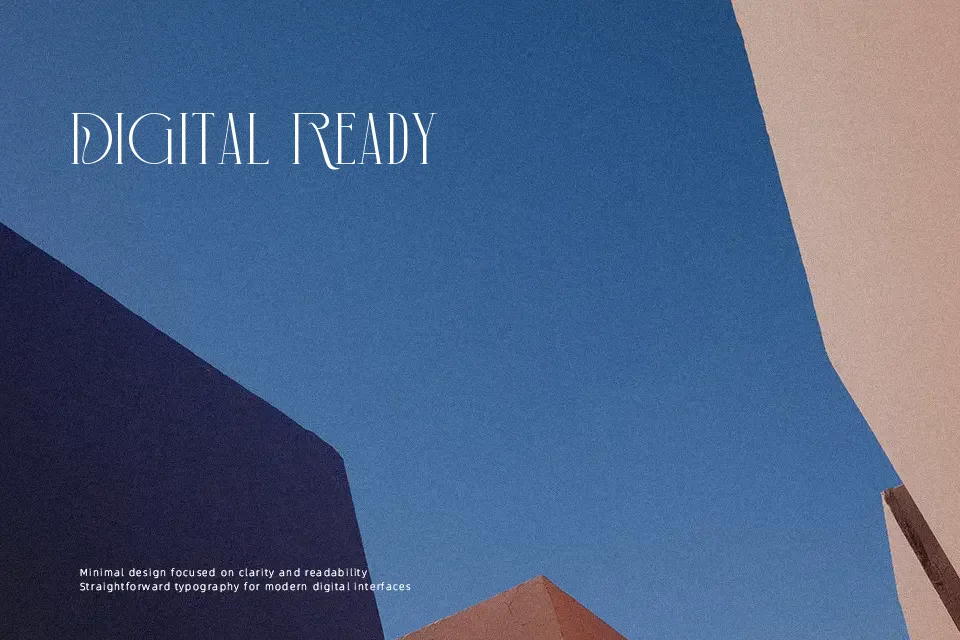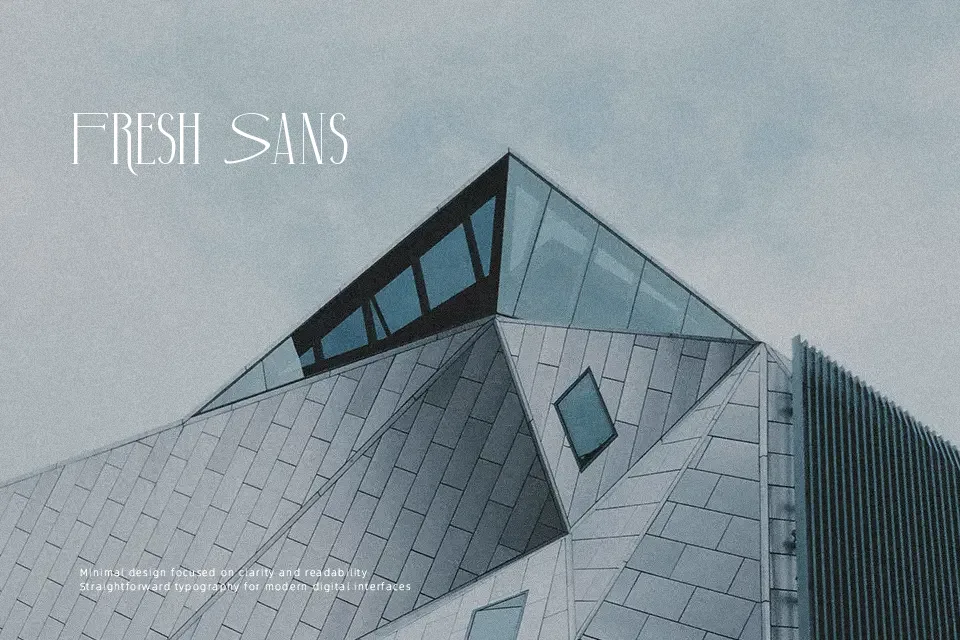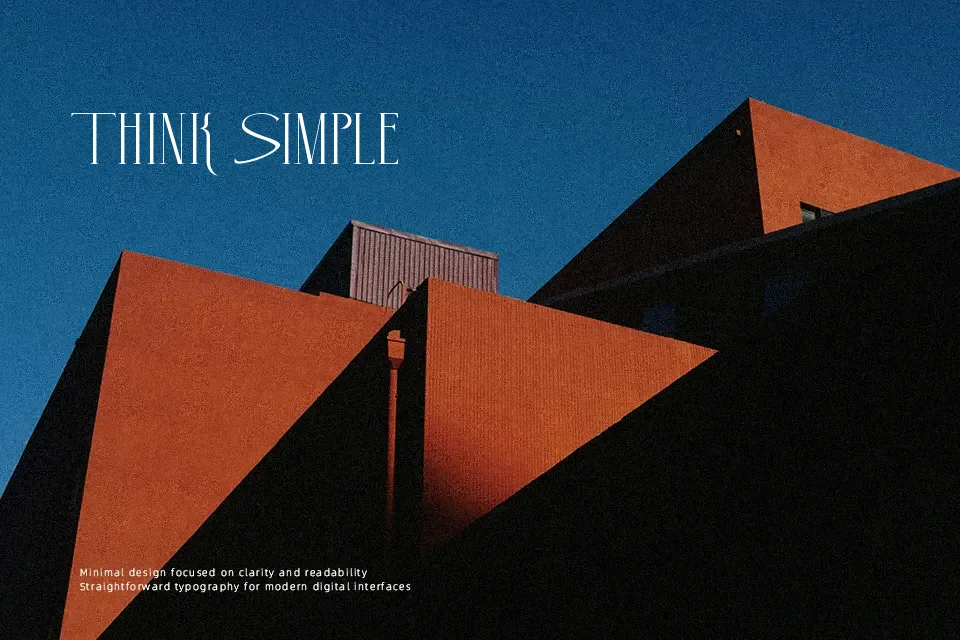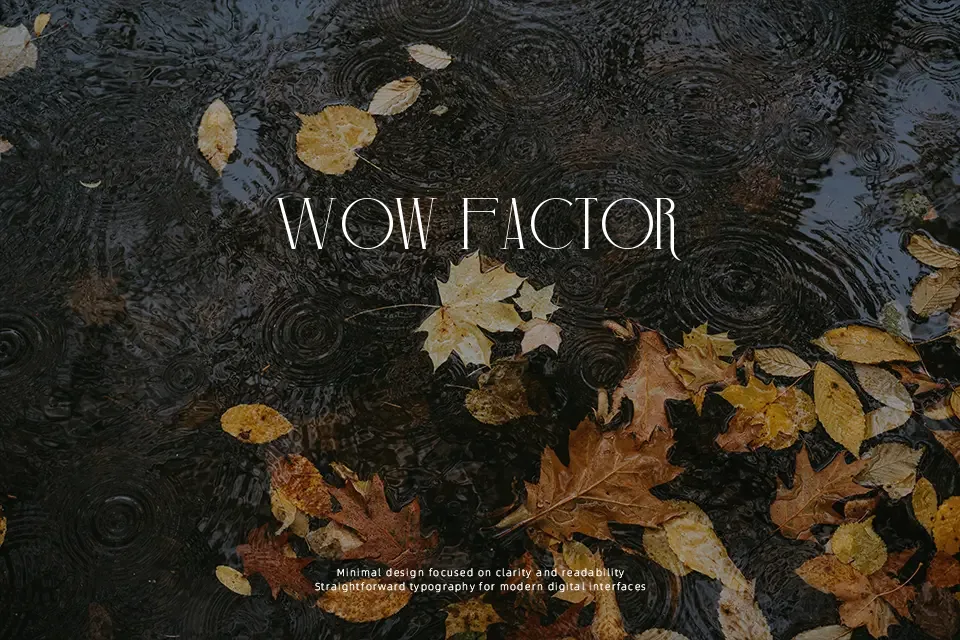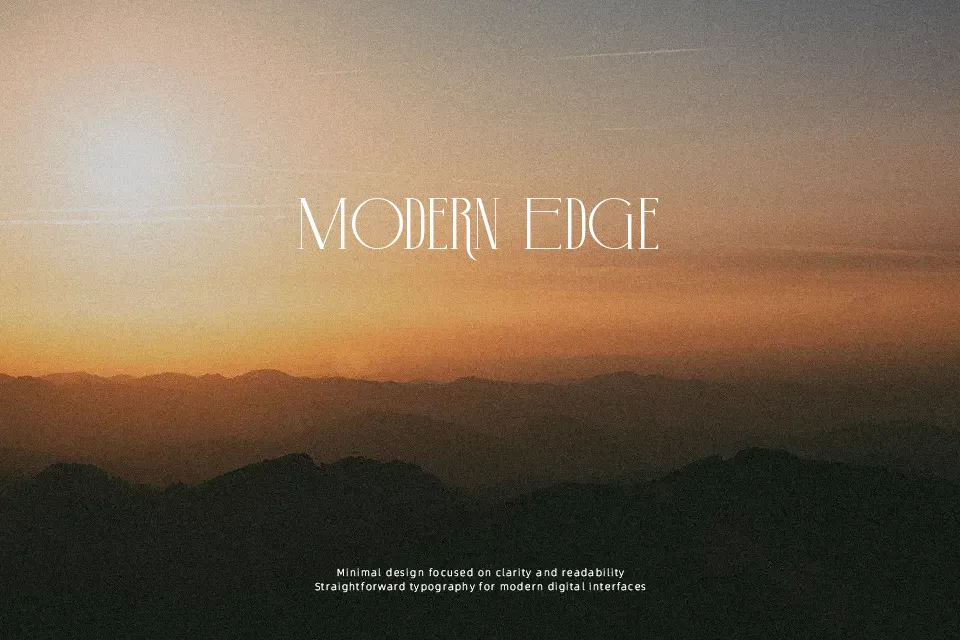
Black Champ Font presents a striking identity as a modern serif display typeface, balancing elegant refinement with a subtle sporty edge. Its defining characteristic is an all-caps structure where uppercase and lowercase inputs yield varying letter sizes, allowing for dynamic typography. The sharp, luxurious letterforms command attention instantly. This typeface excels when applied to premium lifestyle branding, high-end magazine mastheads, and upscale product packaging requiring a bold aesthetic. However, because it relies on alternating all-caps proportions for its unique rhythm, it becomes quite challenging to read in dense paragraphs or extended editorial text. Designers should reserve it strictly for impactful display purposes and short, punchy headlines.
Premium lifestyle branding and logos
Upscale product packaging
High-end magazine covers and mastheads
Long-form editorial body text
Dense paragraphs requiring high legibility
UI design elements requiring standard sentence casing
Perfect for branding, editorial, and headline, with a bold and display style.